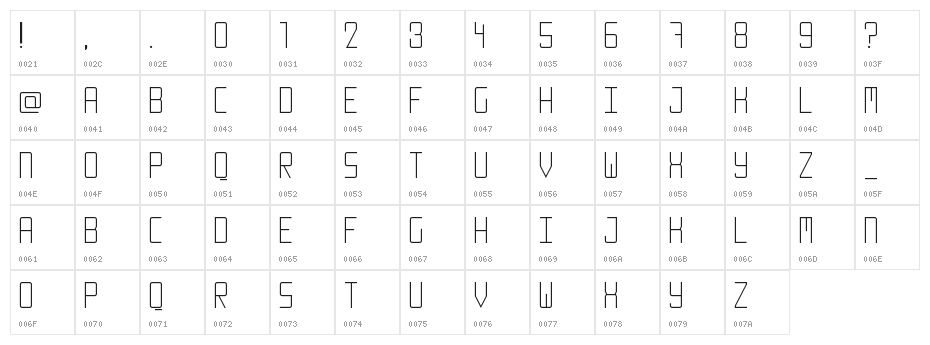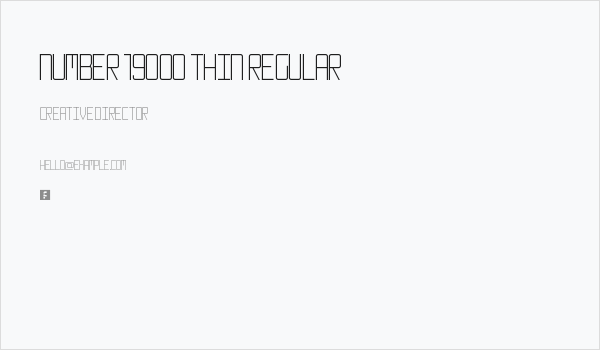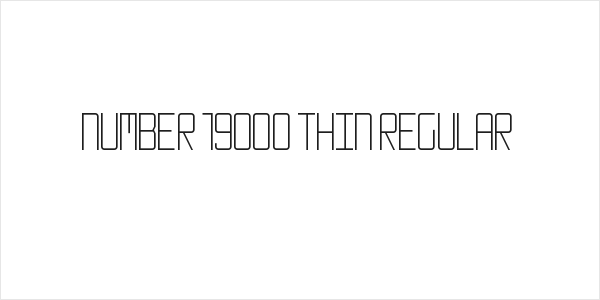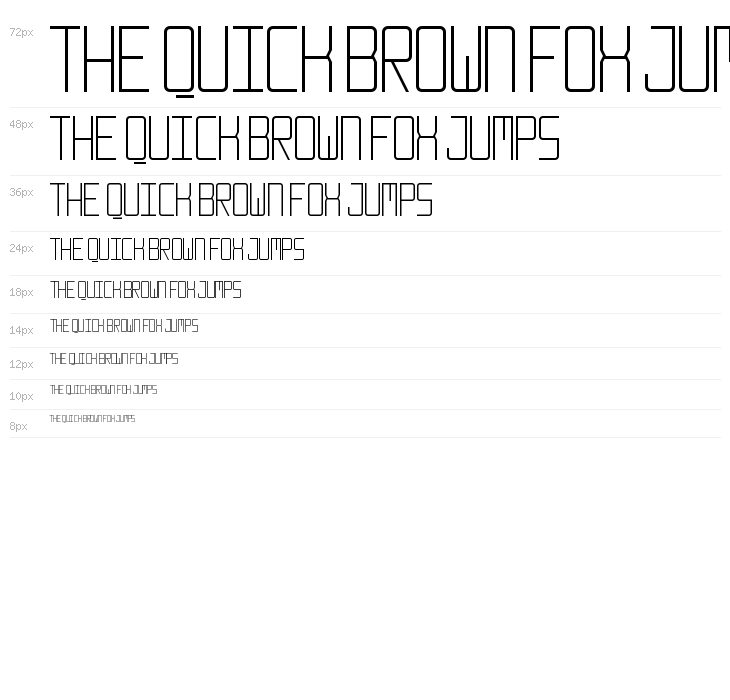
Number 19000 Thin Regular Font
Number 19000 Thin Regular Description
This font features a geometric and modern design with a thin and consistent stroke width. The characters are constructed with straight lines and right angles, giving it a structured and architectural appearance. The uppercase and lowercase letters share similar heights, contributing to a uniform look. The font's minimalistic style is accentuated by its lack of serifs and decorative elements, making it suitable for clean and contemporary designs. The spacing between characters is tight, enhancing its compact and efficient aesthetic. Overall, this font is ideal for projects that require a sleek and futuristic feel.
| Proposed Projects | Ideal for tech branding, modern posters, minimalist logos, and digital interfaces. |